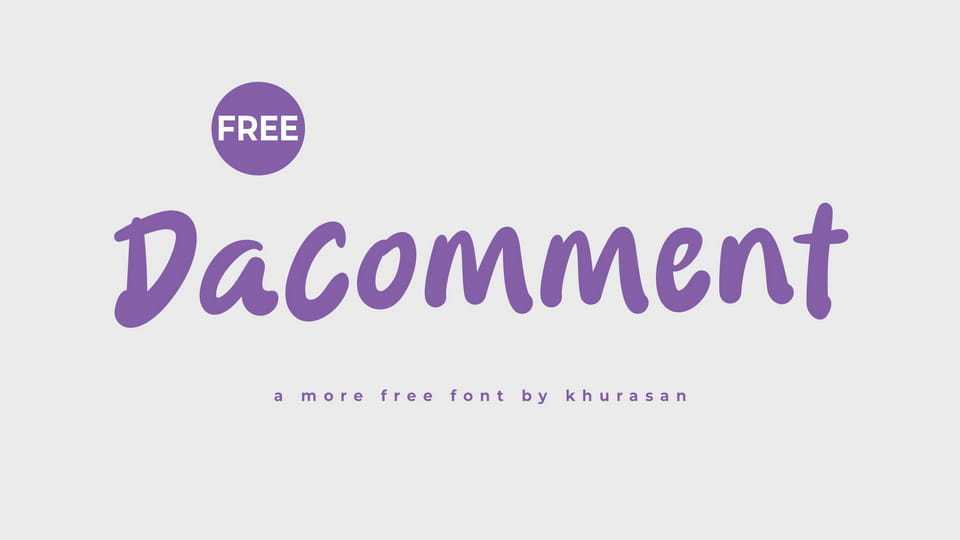
Download Dacomment font, a smooth script typeface featuring elegant, flowing letterforms and a natural handwritten style. Its soft curves and balanced strokes create a friendly and approachable appearance.